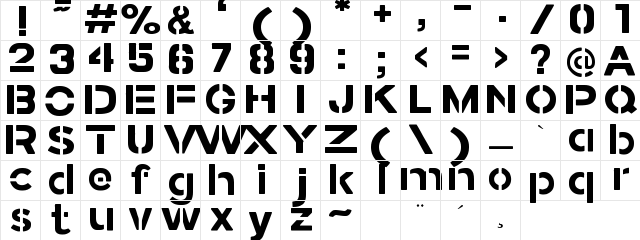
Stamped Navy Font Bold Regular
Design Context for Stamped Navy Font Bold Typeface
Stamped Navy Font Bold borrows the utilitarian aesthetic of stencil lettering, with its characteristic cutaways and no-frills construction lending an industrial edge. The heavy weight commands attention and anchors typographic hierarchies.
A strong choice for packaging that needs edge, warehouse aesthetics, and rough-and-ready visual identities.
Pro Tip: Use Stamped Navy Font Bold at large sizes on packaging, posters, or apparel where the stencil cutaways read clearly. Avoid small sizes where those gaps become visual noise.